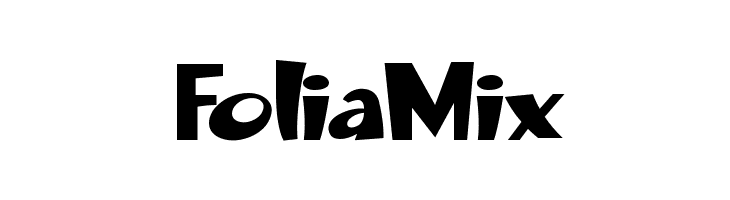
( Fonts by William Jeovah de Medeiros )
A bold, playful font with exaggerated curves and whimsical flair.
A bold, playful font with rounded, exaggerated shapes and an expanded width.